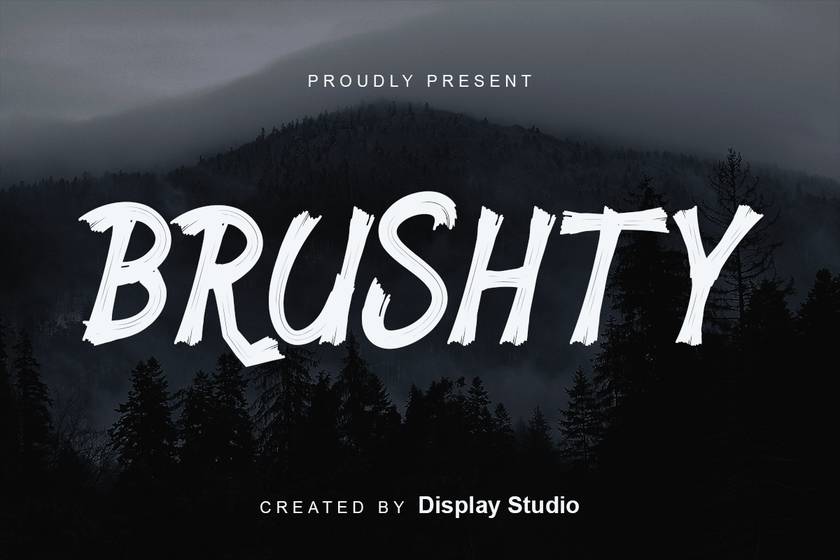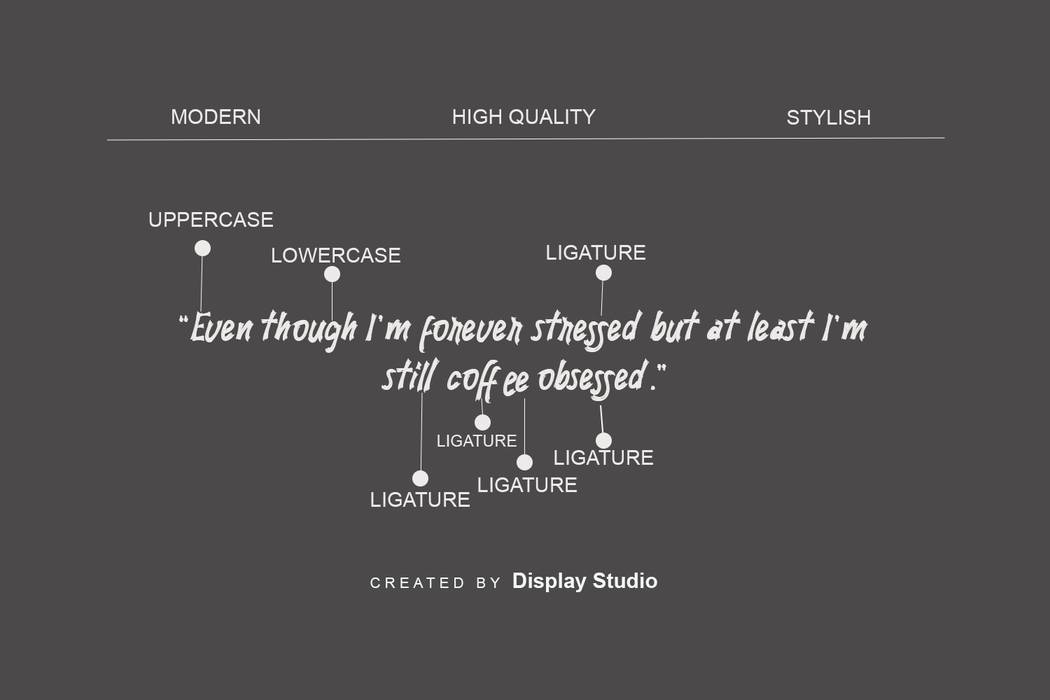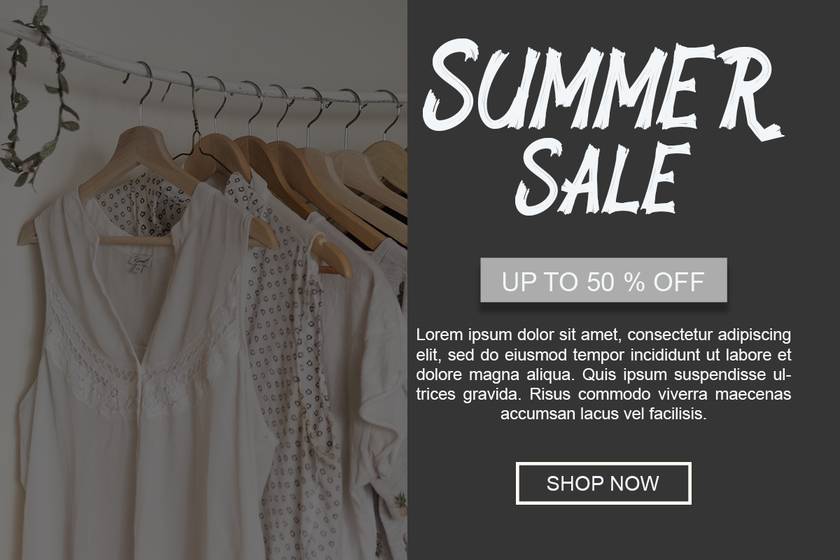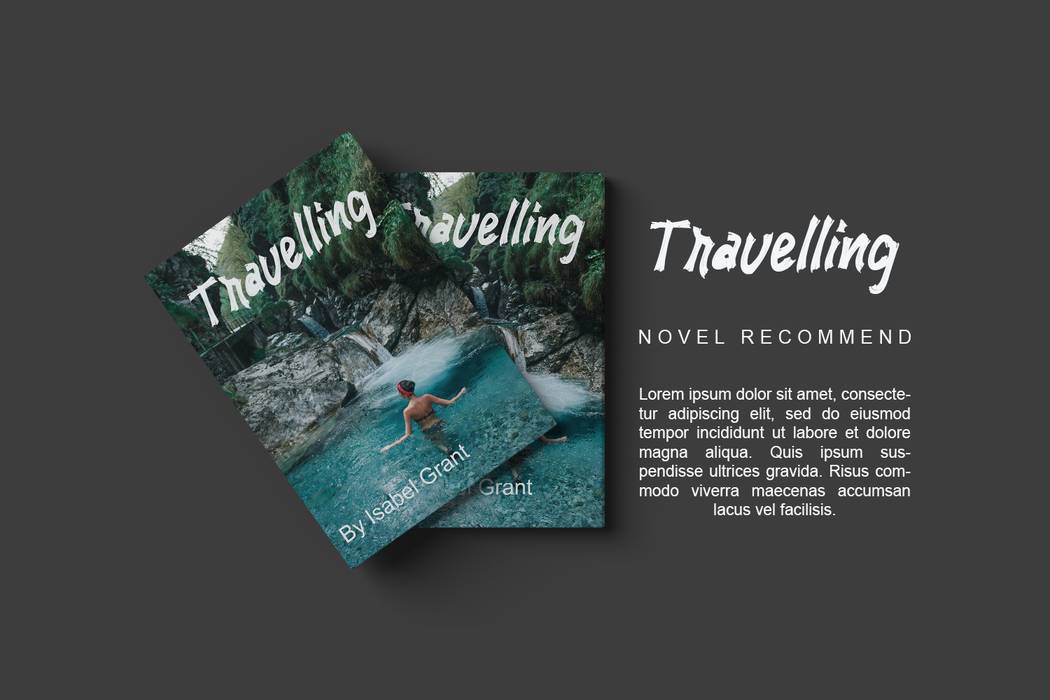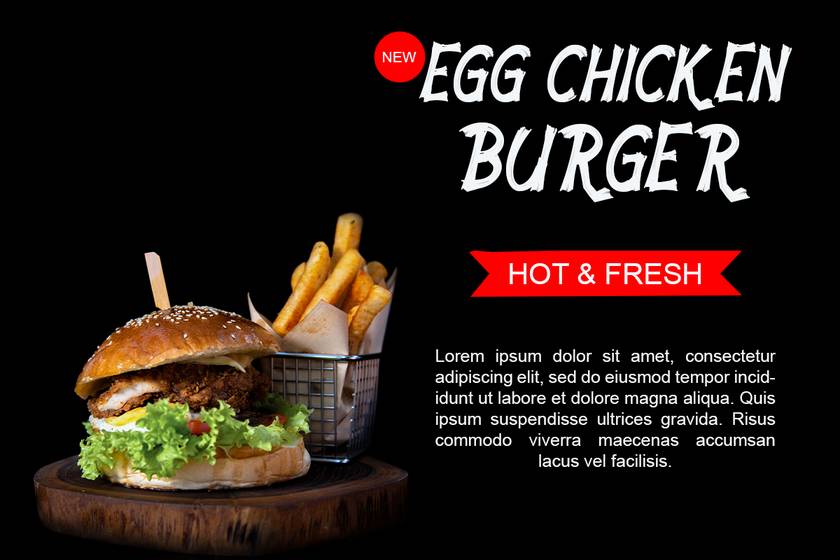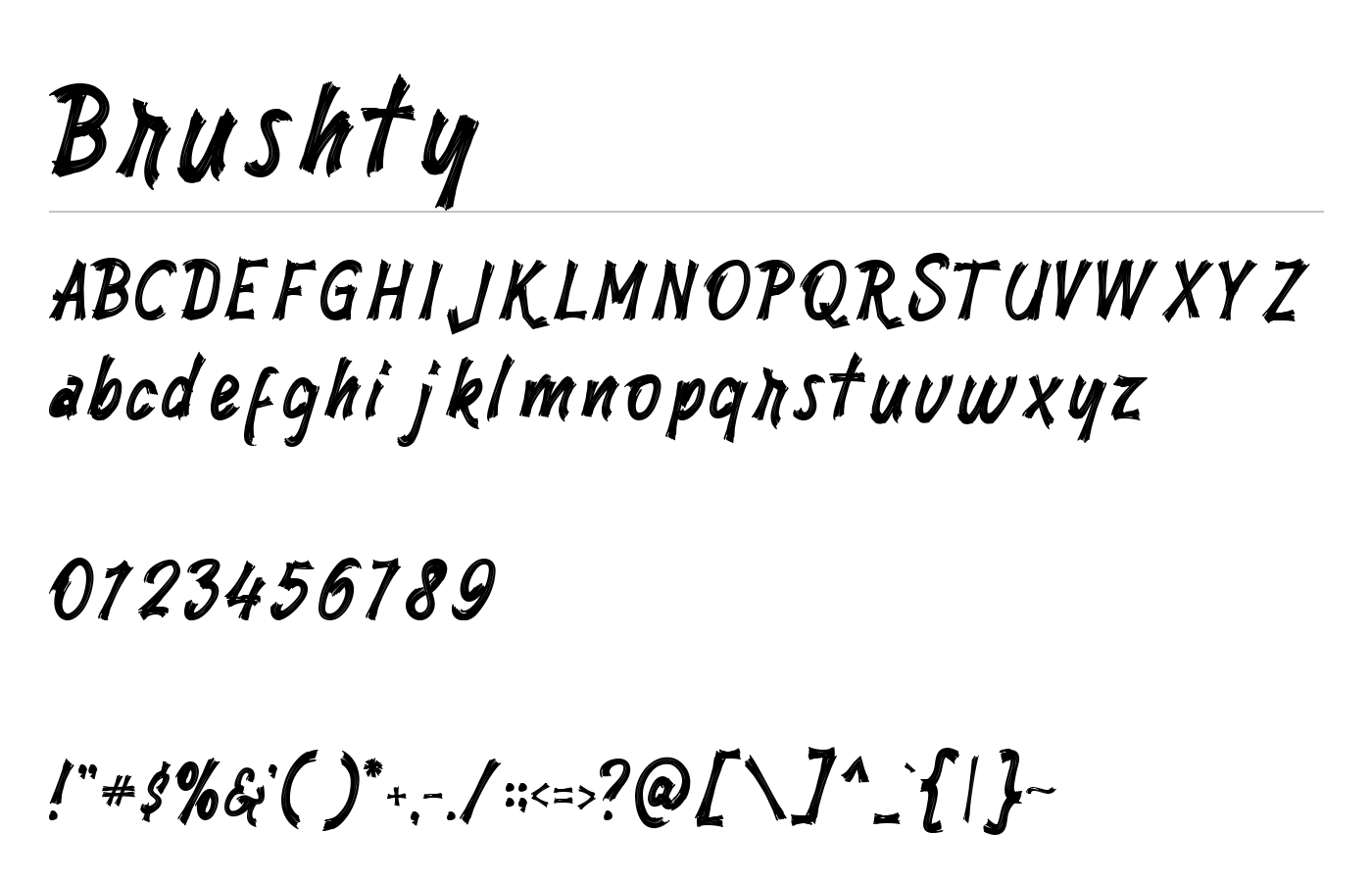
Brushty is a lively handwritten brush script font with an energetic, textured stroke that mimics natural brush painting. Its casual, bold style with irregular edges creates a playful and artistic feel, making it perfect for creative projects, branding, posters, and packaging where a personal, expressive touch is desired.
Brushty Font
About Brushty Font
| Font family | Brushty Font |